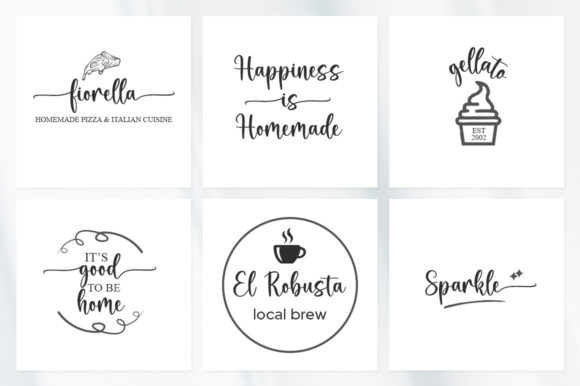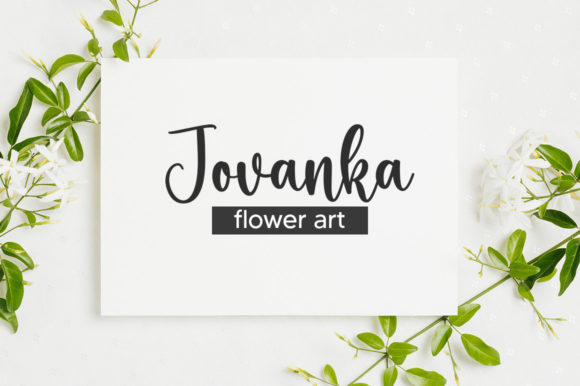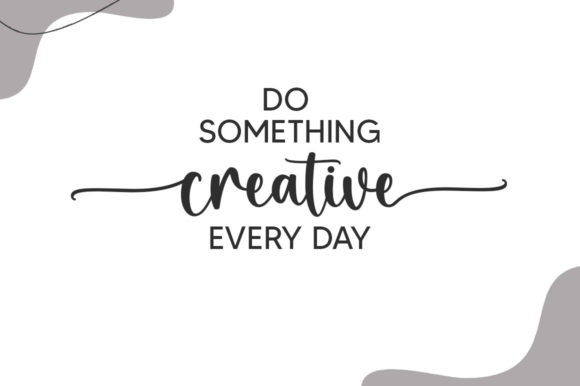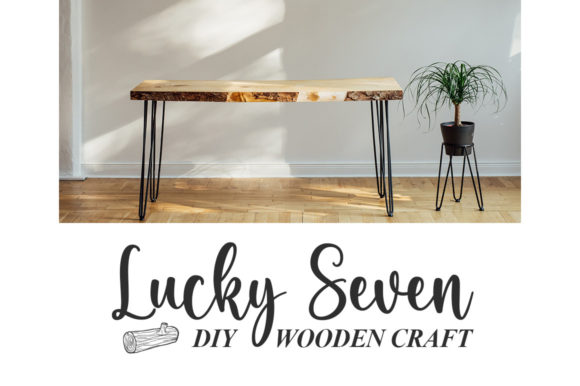
About Homemade Font
Homemade is a romantic and sweet handwritten font with characters that dance along the baseline. It will add a luxurious spark to any design project that you wish to create! This font is PUA encoded which means you can access all of the amazing glyphs and ligatures with ease!